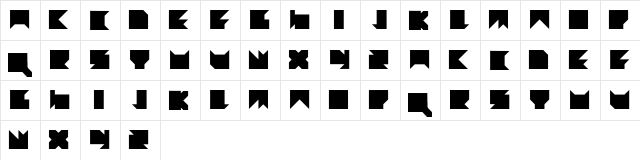
dmf studio klinik fullfill Regular Font Preview
dmf studio klinik fullfill Regular
Design Context for dmf studio klinik fullfill Typeface
dmf studio klinik fullfill is a composed and adaptable typeface that performs quietly and consistently across a wide range of design contexts.